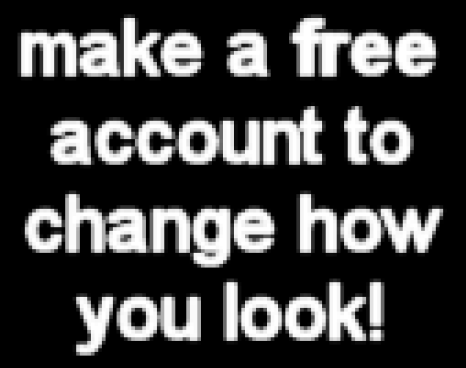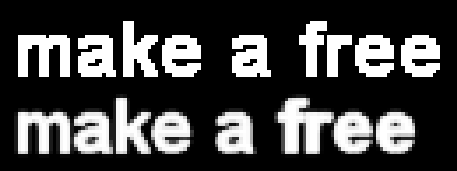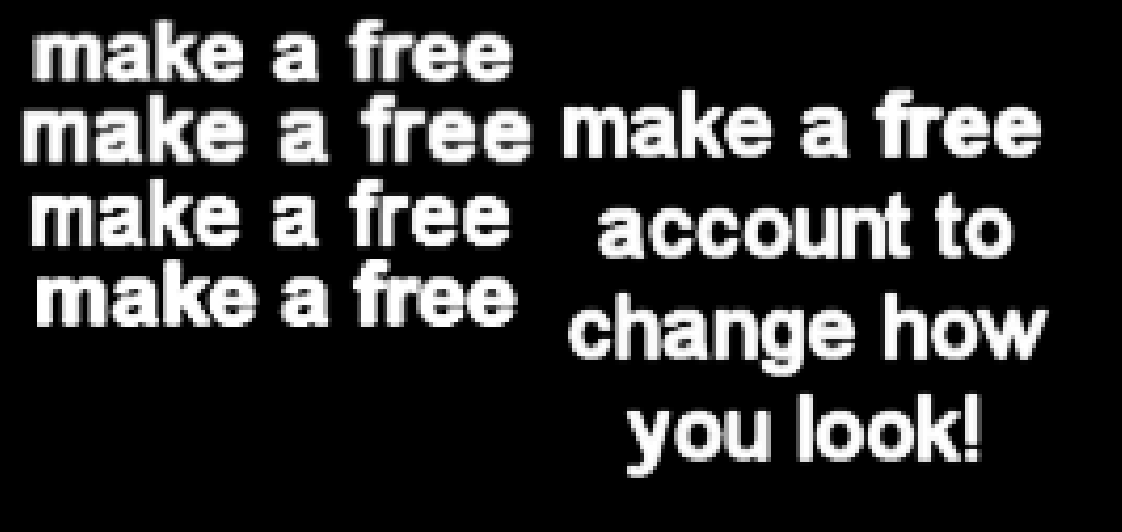
this has been driving me crazy for so long and im a huge stickler for details. font searchers arent helping me and usually get something more “new” and not something existing as far back as 2009
Help me find the exact font from the back of the guest shirt.
going through lists of fonts, i find some that are very close but lack a few details that immediately shut it down as the exact one. why do i need this? I like being as accurate as possible. and no one has solved it as far as i know.
to help you with my search (and see how insane i am), here are some details ive noticed that make this font different from others:
compact and bulky appearance; some letters like nt in account are very close to each other and some letters nearly connect into themselves (c, e, g, a)
the exclamation mark is the same height as the l, h, and k, and has uniform width
the top of the letter t is slanted and it has a curved end
y has a curved end and the top part is not a ‘u’ shape
the a has a slight curved end
top section of the f looks squashed
the letter w appears pinched towards the bottom
the circular part of g is different from o (more narrow & oval)
uses the fancy a but not the fancy g
basically, the letters you need to look out for the most for is g, a, t, y, c, w (and !)
i hope to call all typography enjoyers that recognize over a thousand fonts to help me narrow down what this could be. join me in the madness ive made for myself
good guess, but the c and t gives it away that its not the right one. the ! is also shorter than l and k. the c has a horizontal cut end while dejavu sans has a vertical cut end
not too long really, i just kept testing until i was like “yeah, that matches well”
It’s not 100% there, but its pretty close to the actual font. I used photopea as well which has a lot more limits then photoshop, so i’m sure someone will get the 100% accurate version soon enough.
i didnt think of using outlines before thats really helpful!
i experimented some more with an old version of photoshop and i found out that arial with aliasing gets pretty close (bolded & 7pt)
i tried combining bold arial with an outline with a regular one with no outline
i used the aliased text, blurred it slightly, and made a copy lowered in opacity
same aliased text but i tried using transformation to add the anti aliasing + several copies
anti aliased + bold + outline in 11pt then resized. i thought since thats the default for text sizes, maybe they used that. plus the original has some roundness to it which only happens in larger sizes
i think with confidence the font is arial; but how to replicate the exact look i dont know. the text has weird irregularities in character spacing and width that i wonder what program would even do that